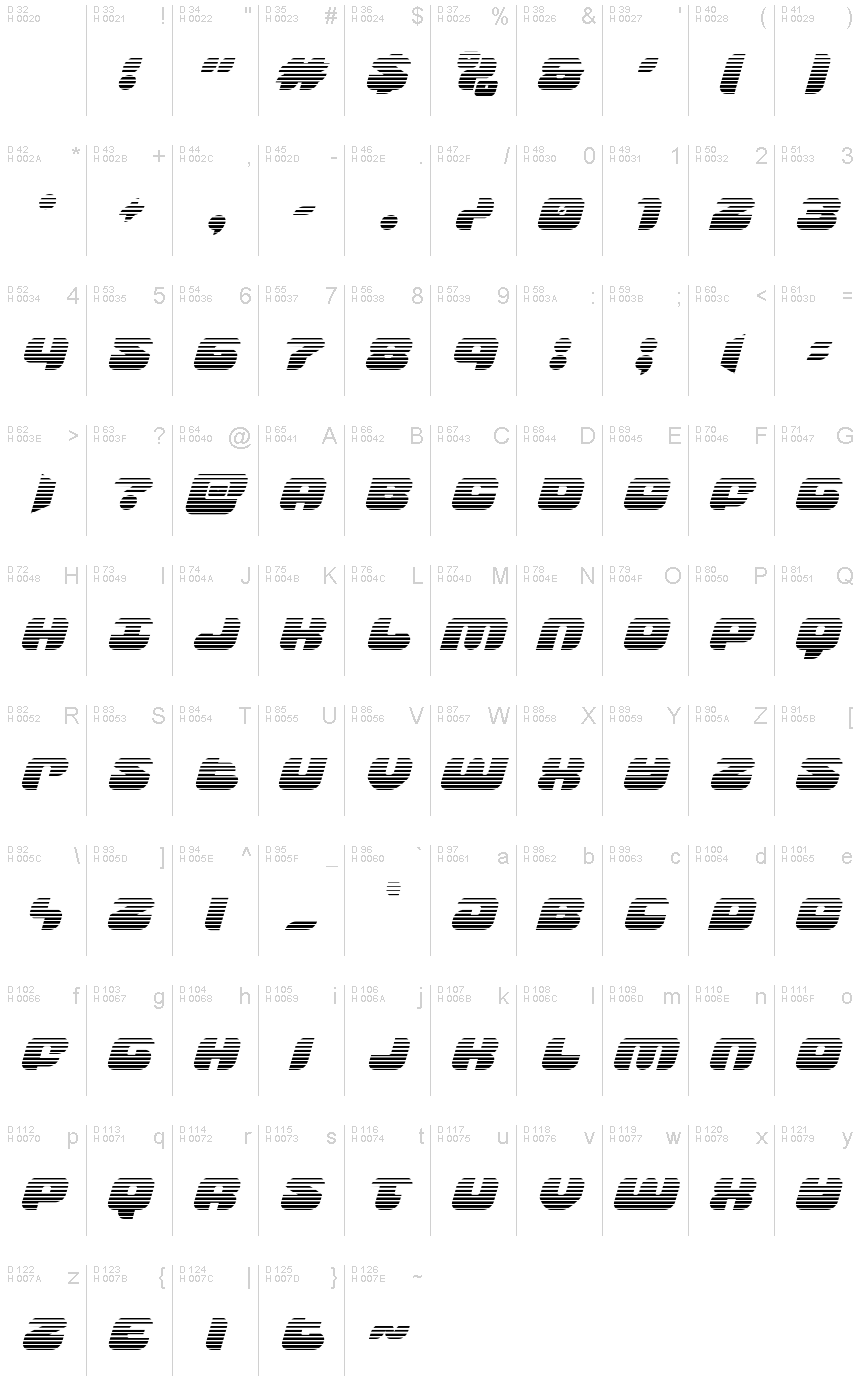
Groovy Smoothie Gradient Ital
Groovy Smoothie Italic, crafted by Iconian Fonts, emanates a captivating essence that captivates the senses. This bold, expanded display font exudes a harmonious blend of retro charm and modern sophistication. Its playful, smoothed-out curves and dynamic letterforms evoke a sense of movement and energy, inviting the viewer to immerse themselves in its groovy, expressive allure.
Groovy Smoothie Italic's versatility makes it a standout choice for a wide range of design applications. Its distinctive personality lends itself well to eye-catching branding, captivating poster designs, and vibrant typographic treatments. Whether crafting attention-grabbing headlines, crafting playful logo designs, or adding a touch of vintage flair to digital interfaces, this font's versatile nature ensures a seamless integration into diverse creative projects.